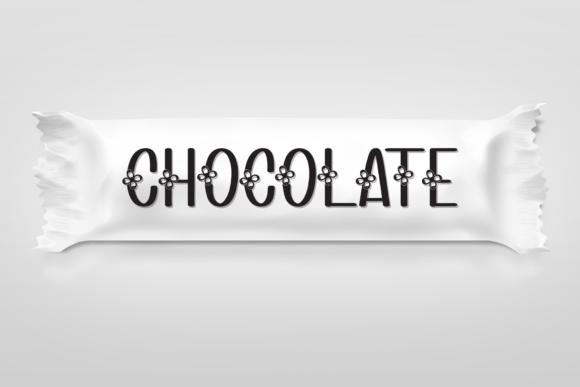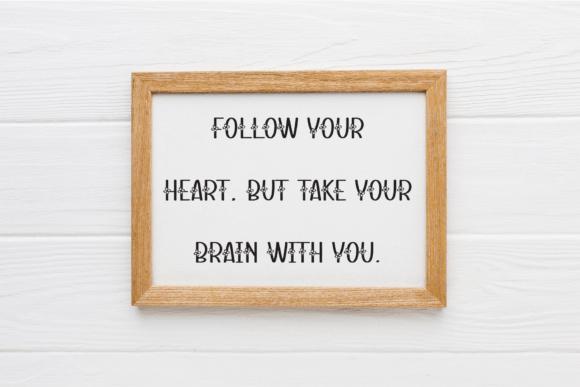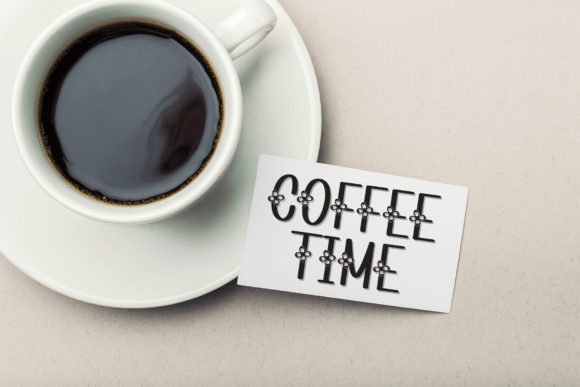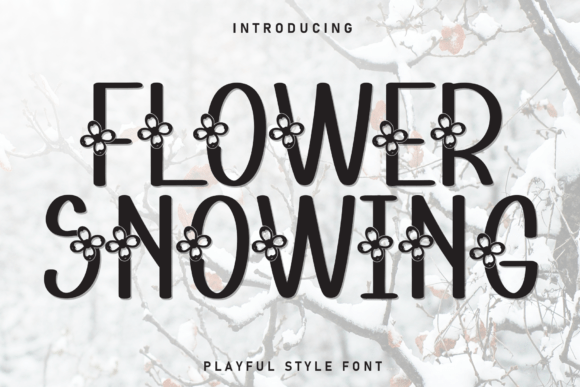
Delve into the captivating charm of the engaging handwritten display font, brimming with a warm, sweet essence that is simply irresistible.
With its intrinsic friendliness, this font heralds as the prototypical companion in weaving magical wedding invitations and in infusing a joyful sparkle into any card or design masterpiece Enhance your creative projects with a vibrant splash of fun and charm inherent to this lively font.